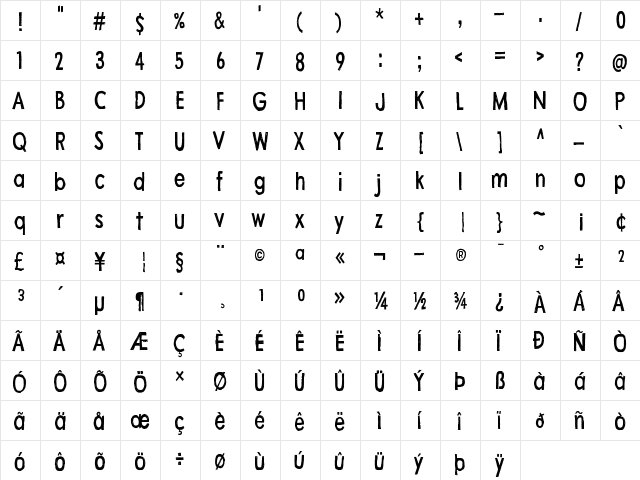
Flea Market Finds Regular
Design Context for Flea Market Finds Typeface
Flea Market Finds takes a measured approach to typography — its balanced proportions and neutral character make it a reliable workhorse for both digital and print work.